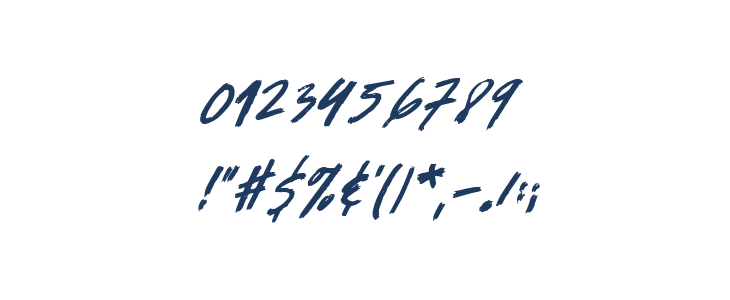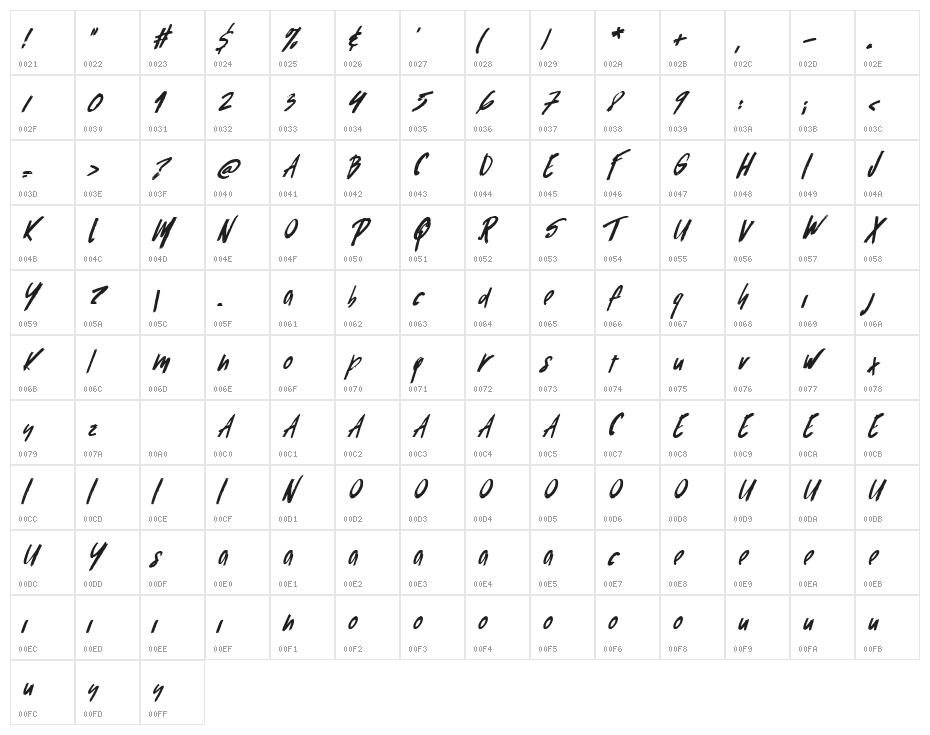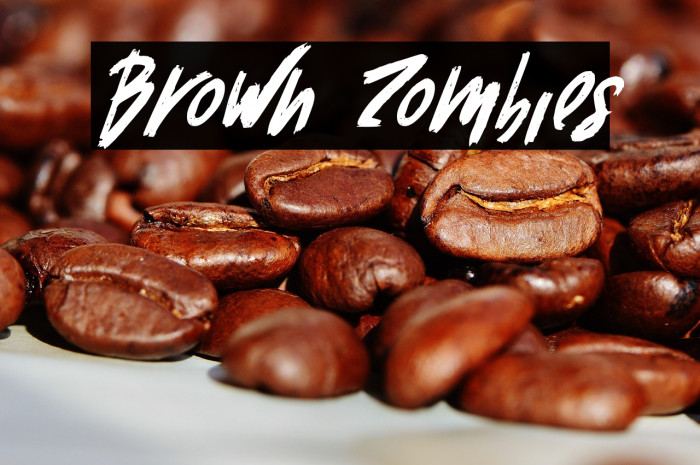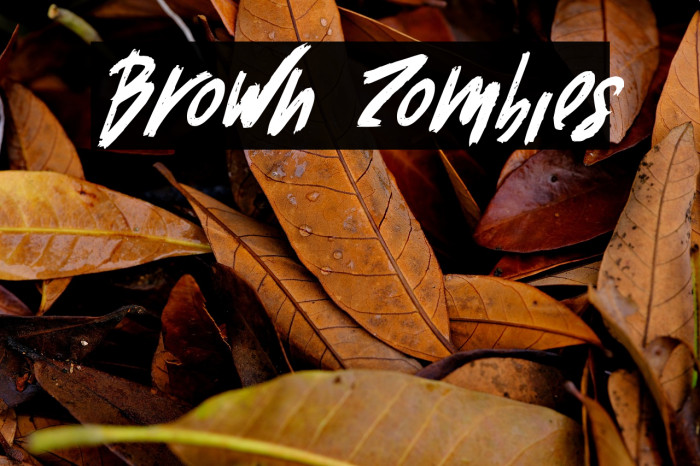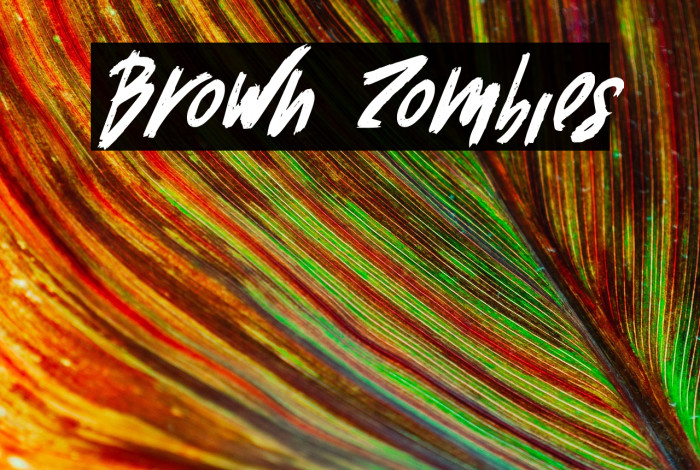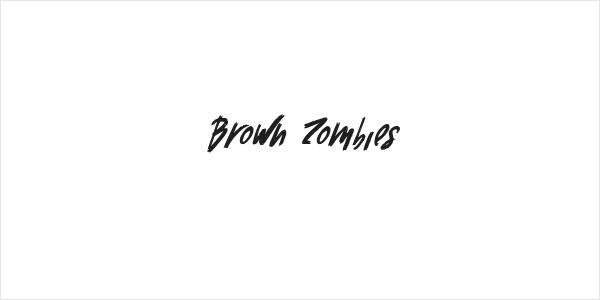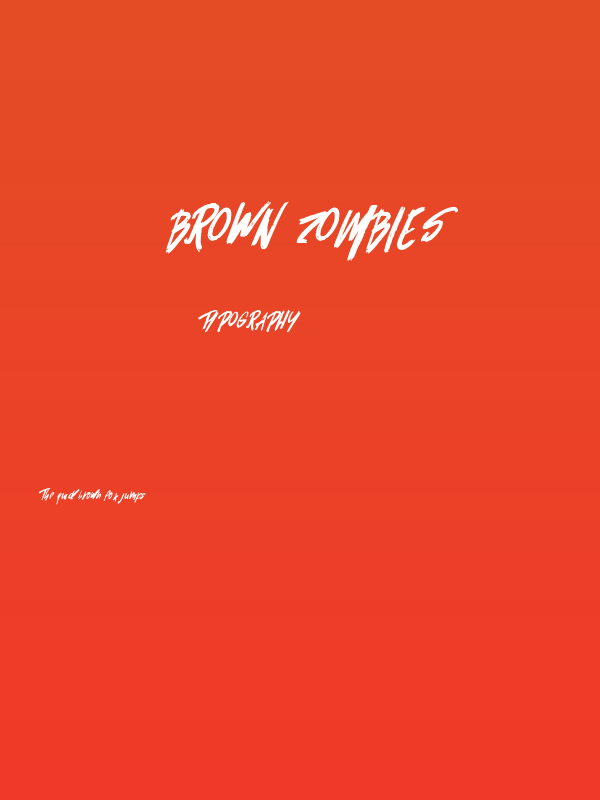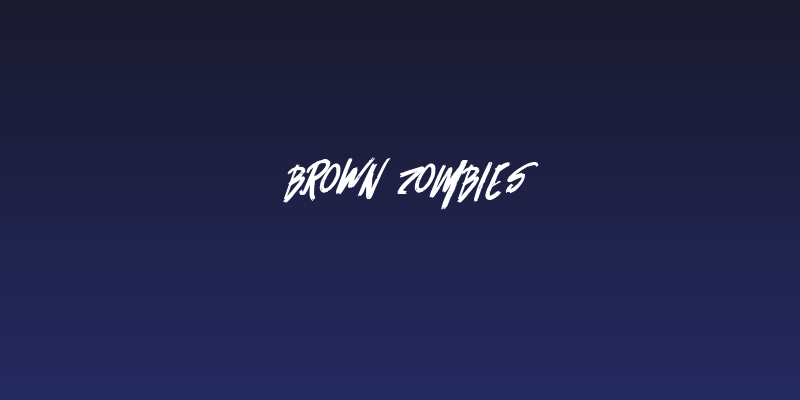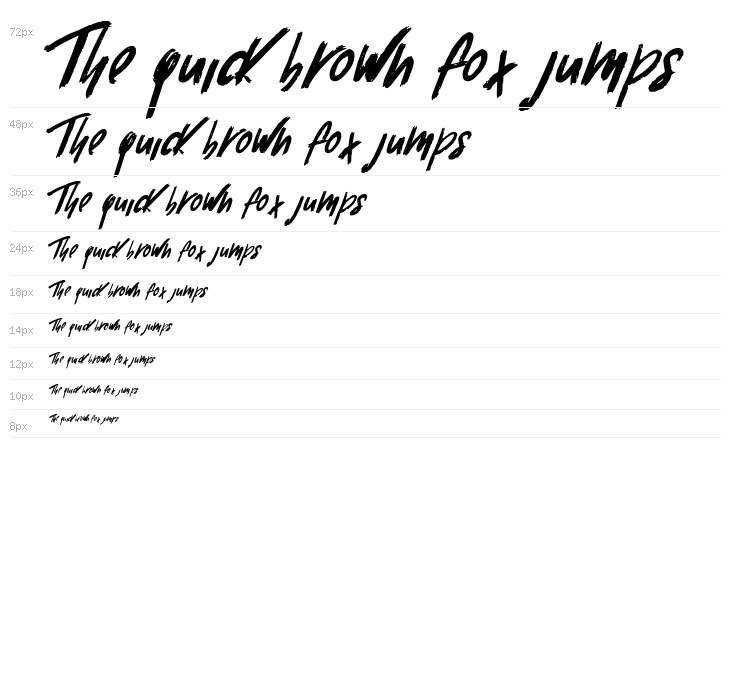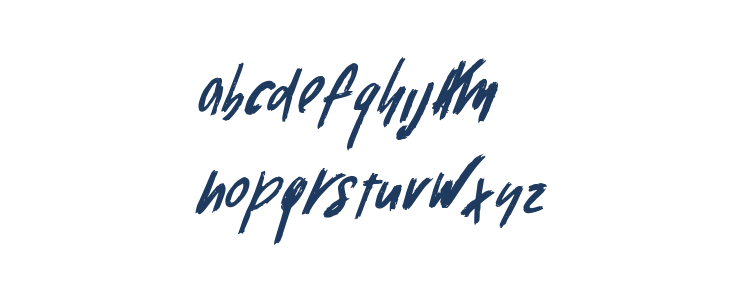
Brown Zombies Font
Brown Zombies Description
This font features a bold, expressive style with a handwritten appearance. The strokes are thick and dynamic, giving it a sense of movement and energy. The letters have a slightly irregular form, adding to the casual and artistic feel. The uppercase and lowercase letters maintain a consistent style, with a playful and slightly chaotic arrangement. The numbers and special characters follow the same energetic design, making the font suitable for creative and informal projects. The overall look is modern and edgy, perfect for grabbing attention.
| Proposed Projects | Ideal for posters, album covers, branding for creative industries, and any project needing a bold, artistic touch. |